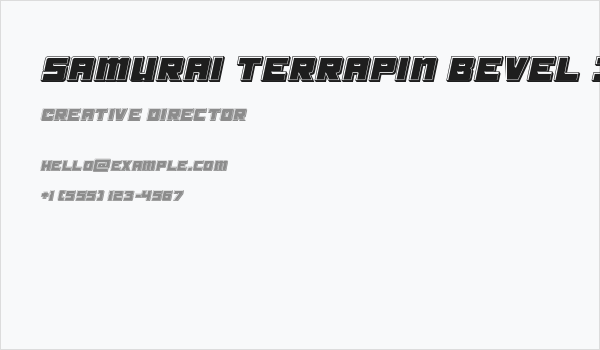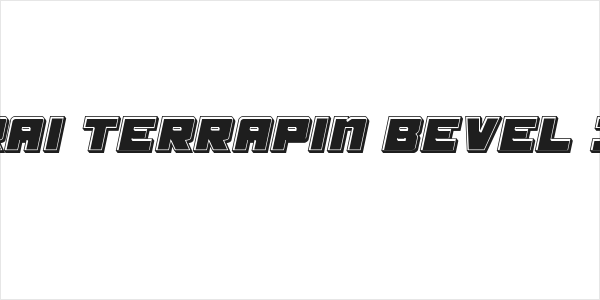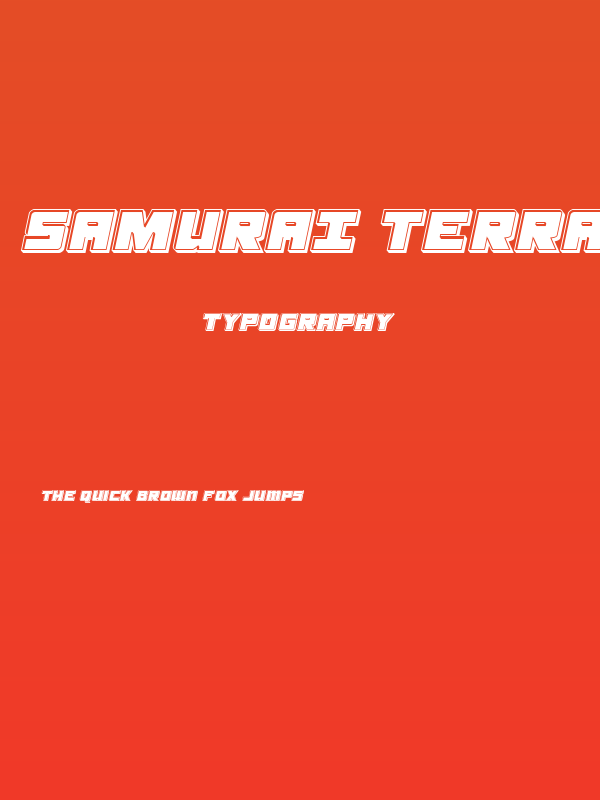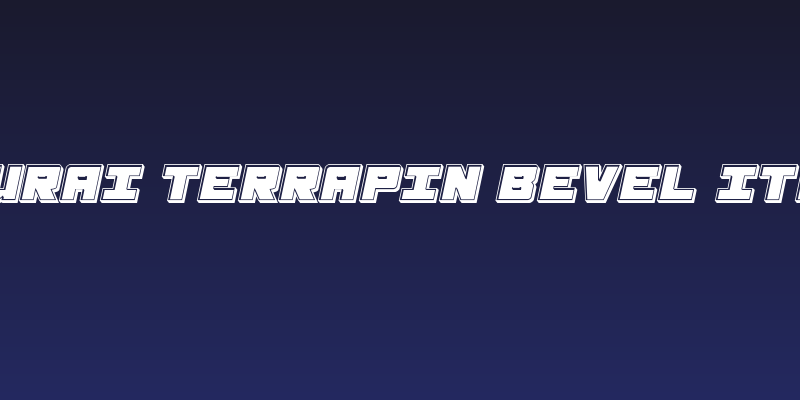
Samurai Terrapin Bevel Italic Font
Samurai Terrapin Bevel Italic Description
This font features a bold, dynamic style with a distinct beveled edge that gives it a three-dimensional appearance. The italicized slant adds a sense of motion and energy, making it stand out in any design. Each character is outlined with a thick border, enhancing its visibility and impact. The uppercase and lowercase letters maintain a consistent design, with angular cuts and sharp edges that contribute to its modern aesthetic. The numerals and special characters follow the same stylistic approach, ensuring uniformity across all text elements. This font is ideal for projects that require a strong, eye-catching display.
| Proposed Projects | Ideal for sports branding, video game titles, posters, and dynamic advertising campaigns. |